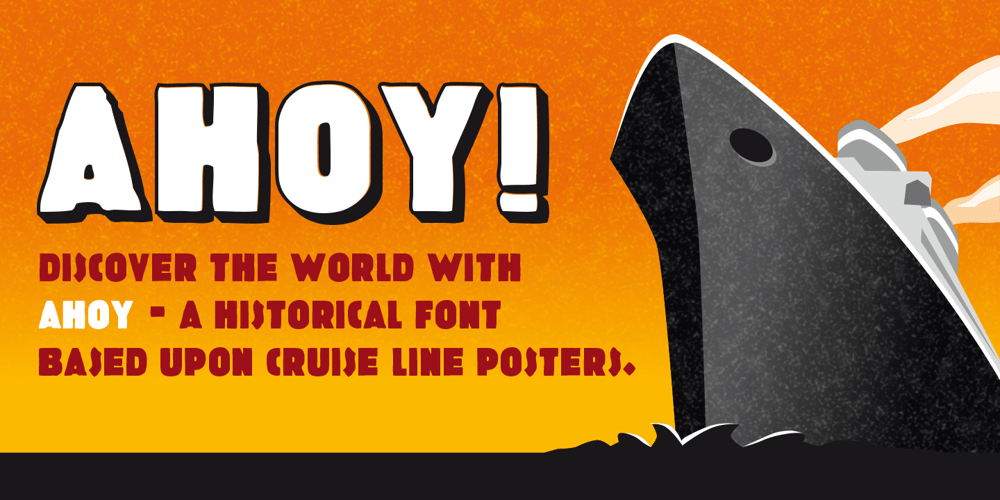
Ahoy Font Family was designed by Florian Zietz and published by Librito.de. Ahoy contains 2 styles and family package options. This design is based upon historical cruise line posters. In the beginning of the 20th century wealthy europeans began to travel the world, following the advertising of large ship companies. This font is a revival of such a typeface. There is a regular filled version and an outline version, too. The fonts are all caps, only.